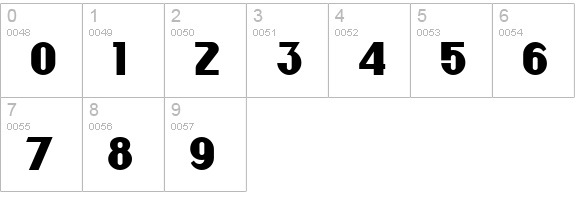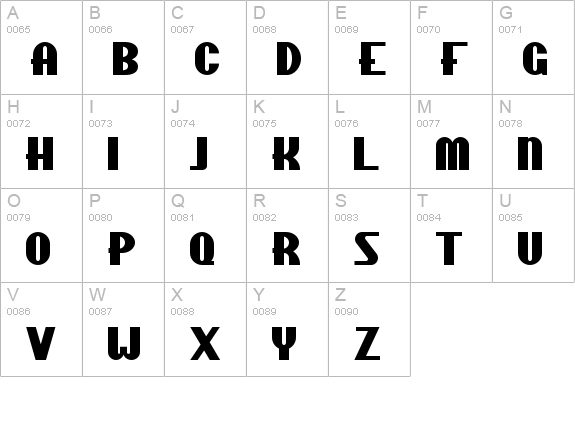
Chippewa Falls NF Font Details
Chippewa Falls NF is a beautifully crafted font that exudes elegance and sophistication. Its timeless design features intricate details and clean lines that make it perfect for a wide range of design projects. This versatile font is ideal for both headings and body text, adding a touch of class to any project. What sets Chippewa Falls NF apart is that it is available for free download at FontsMarket.com. This means that you can access this stunning font without any cost, making it a valuable addition to your font library. Whether you're working on a website, logo, or print materials, Chippewa Falls NF is sure to elevate your design and make a lasting impression. Download it today and unleash the full potential of this exquisite font.